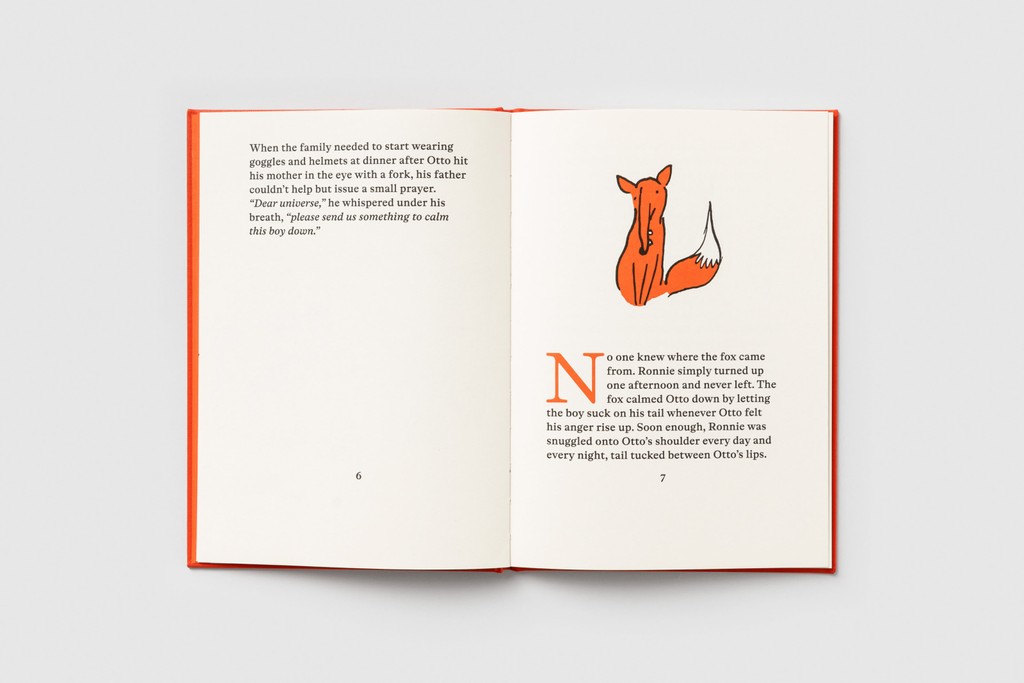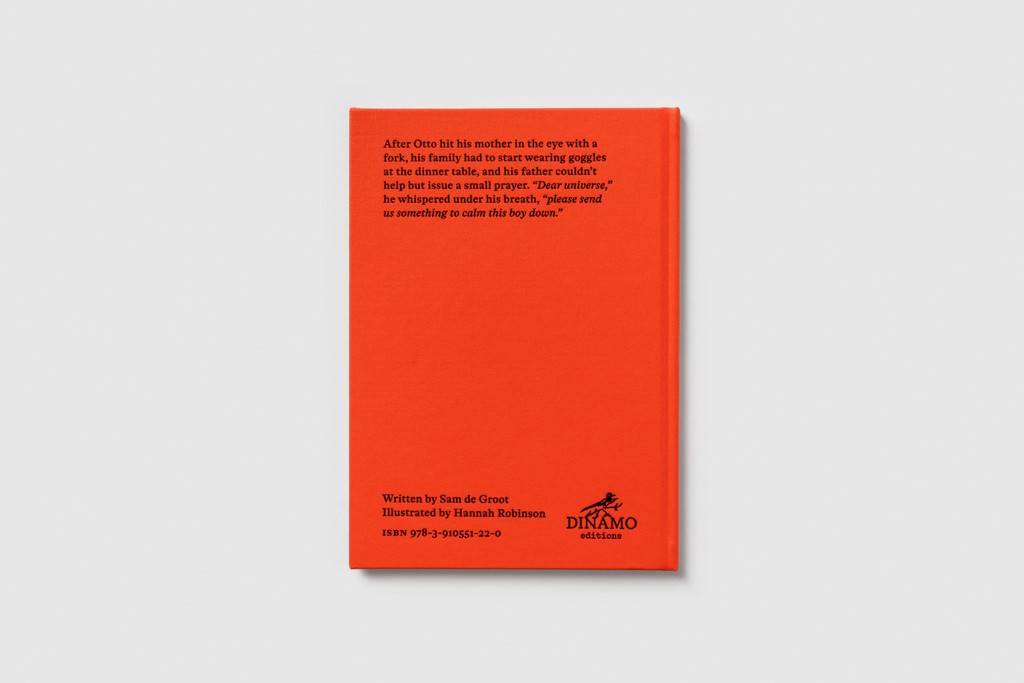
Otto: A tale of a boy and a tail
Otto was a perfectly lovely child… although there was the slight thing of his temper. After Otto hit his mother in the eye with a fork, his family had to start wearing helmets at the dinner table, and his father couldn’t help but issue a small prayer. “Dear universe,” he whispered, “please send us something to calm this boy down.”
Enter Ronnie.
In graphic designer and author Sam de Groot’s fable of modern parenting, psychoanalytic intrigue meets Aesopian Bildungsroman as we follow the tale of a boy and his fox. A story of soft orange paws and sharp teeth, Otto asks: How do we learn to understand our deepest emotion, what creatures lurk beneath the surface of our minds, and to what lengths will parents go to placate their child?
Released to coincide with the launch of our ABC Otto family, a cheerful text font with a sturdy, wide rhythm designed by Sam de Groot and Laura Opsomer Mironov, this book is an homage to various histories and forms of storytelling, and illustrated by Hannah Robinson. Children may proceed with caution.